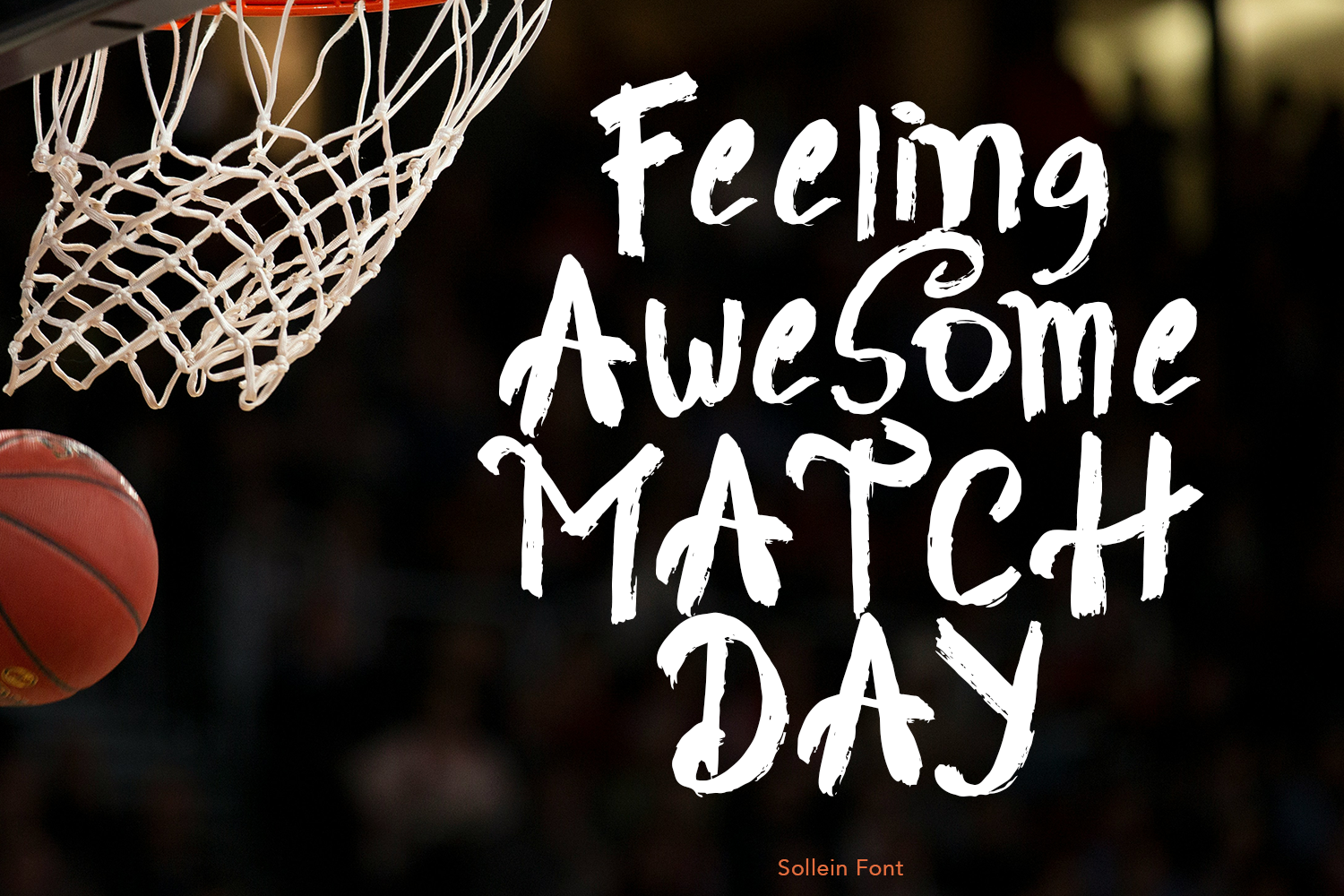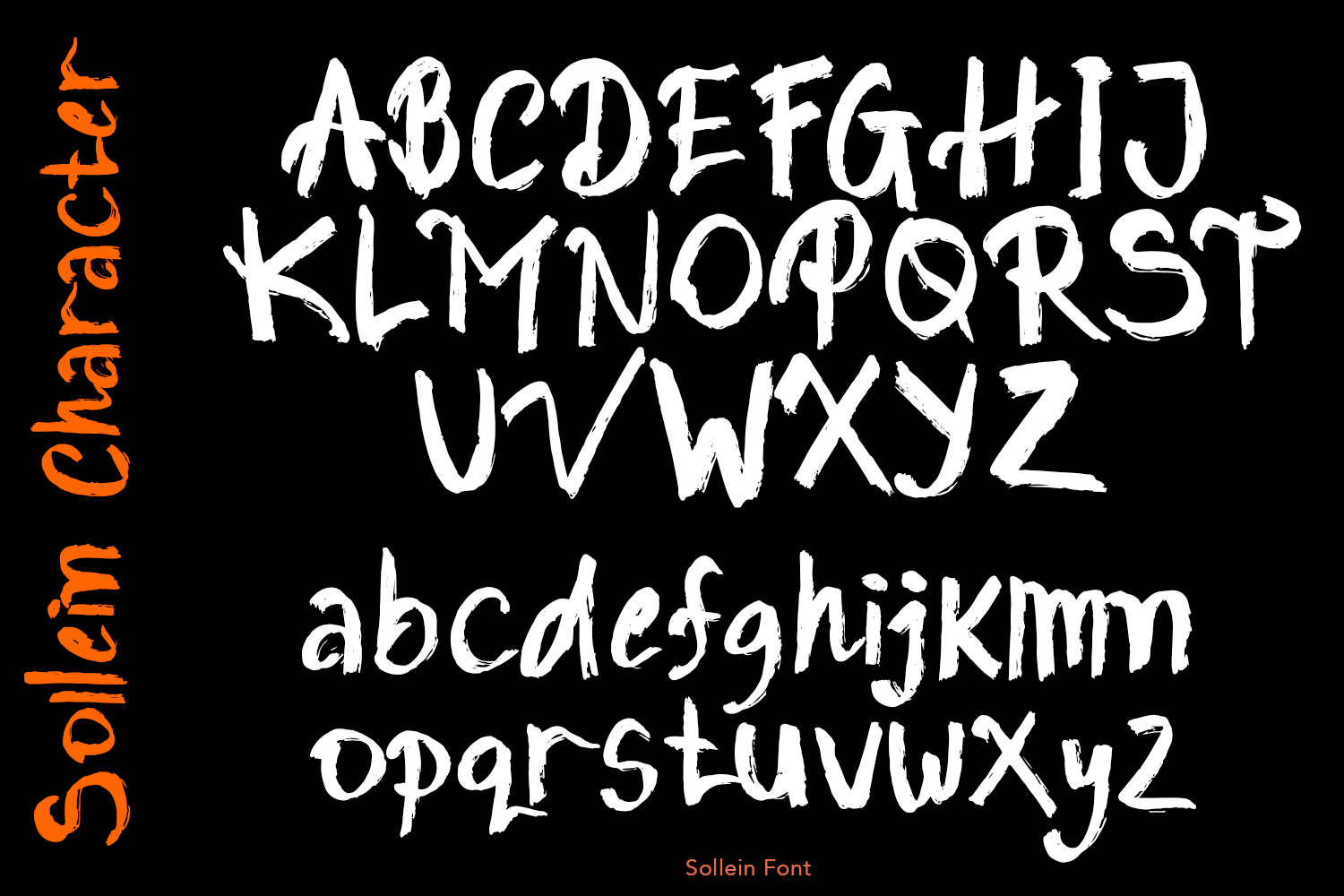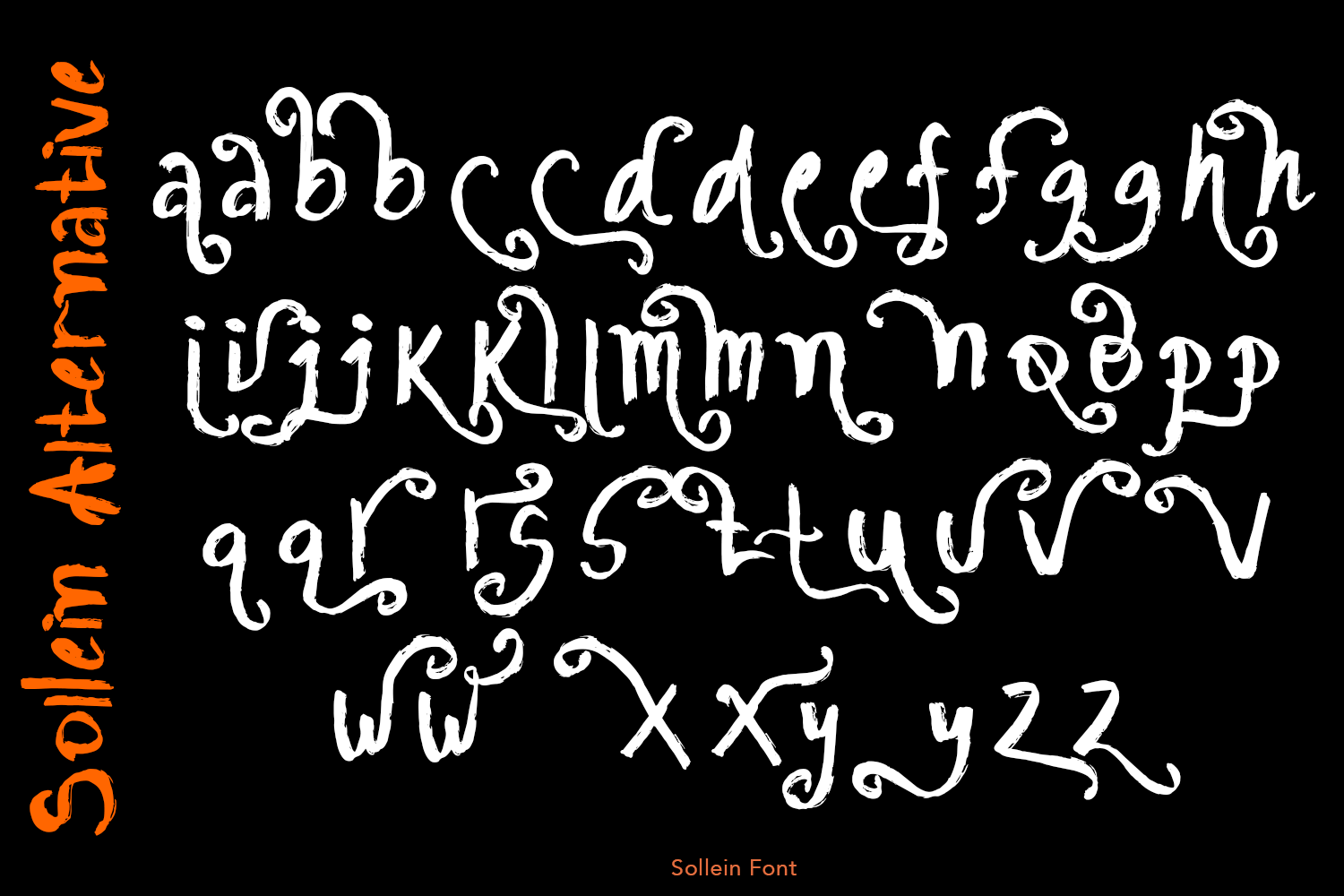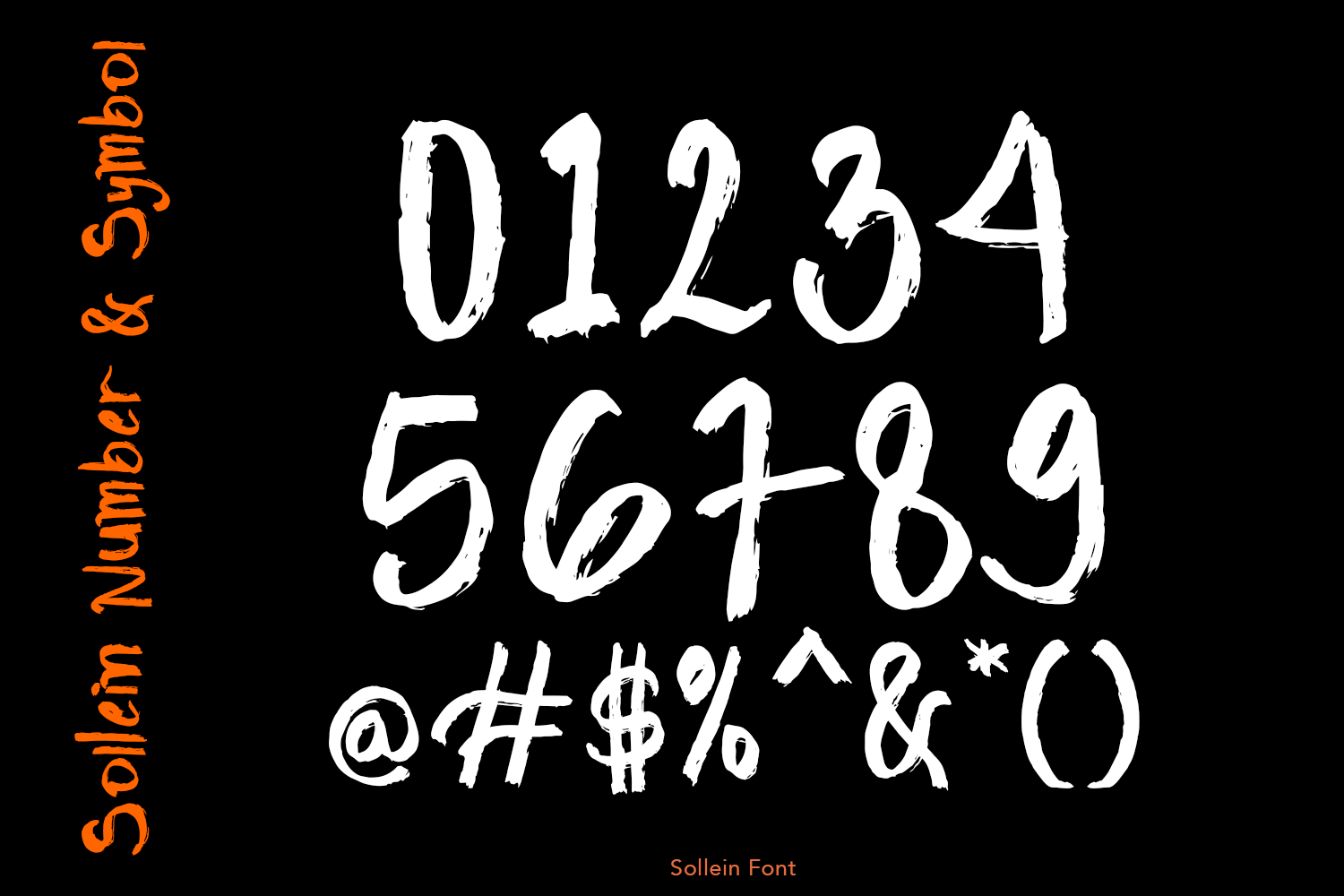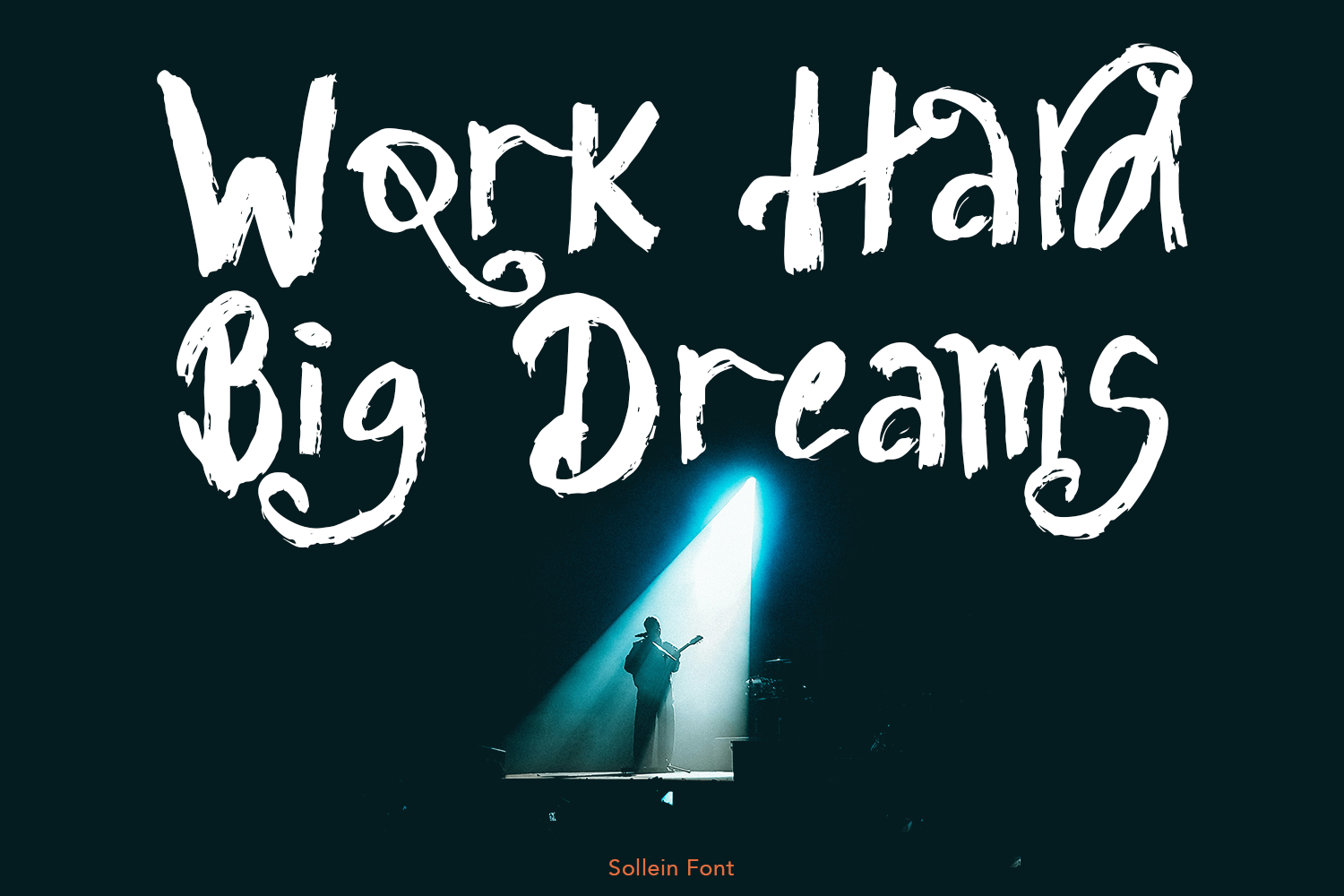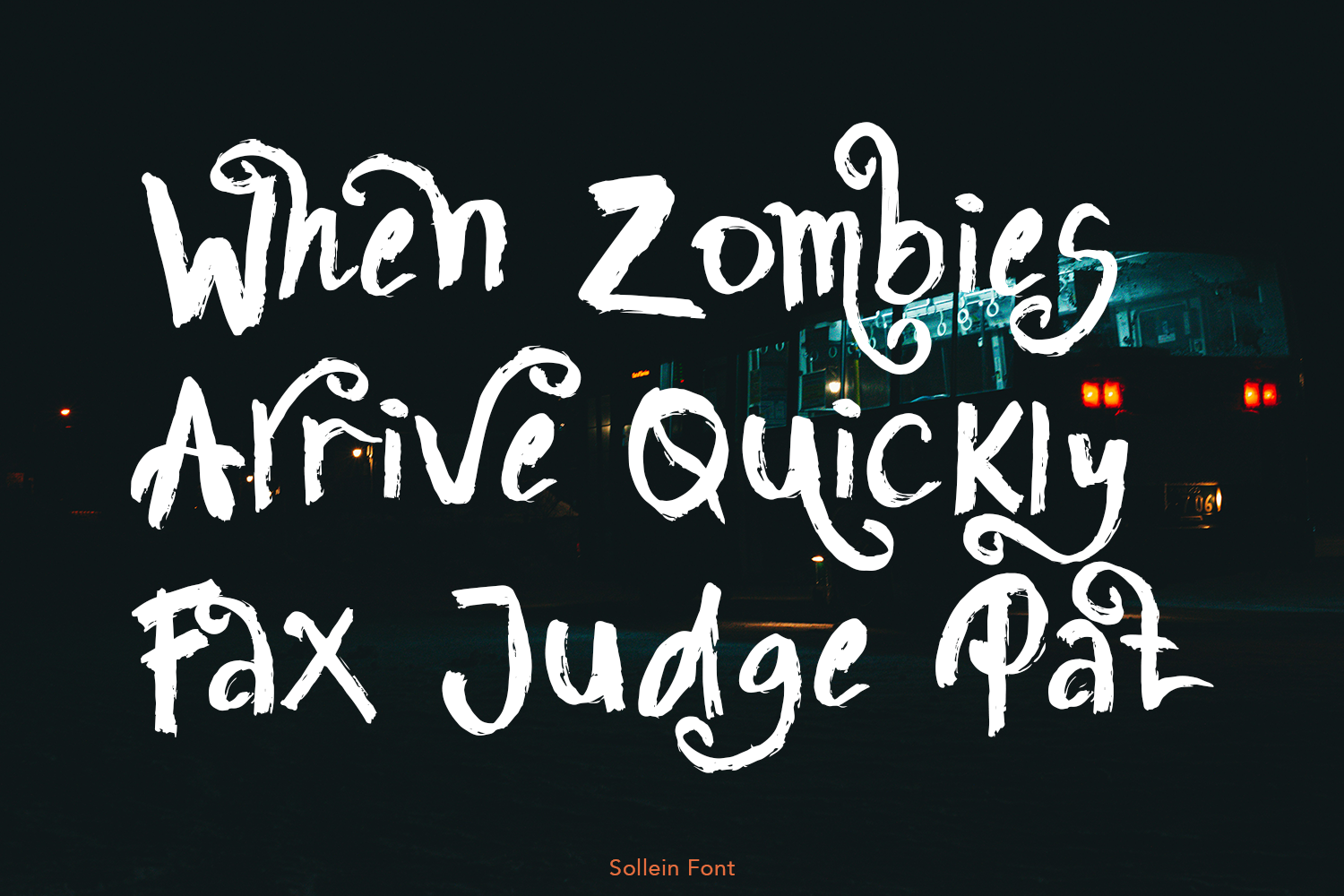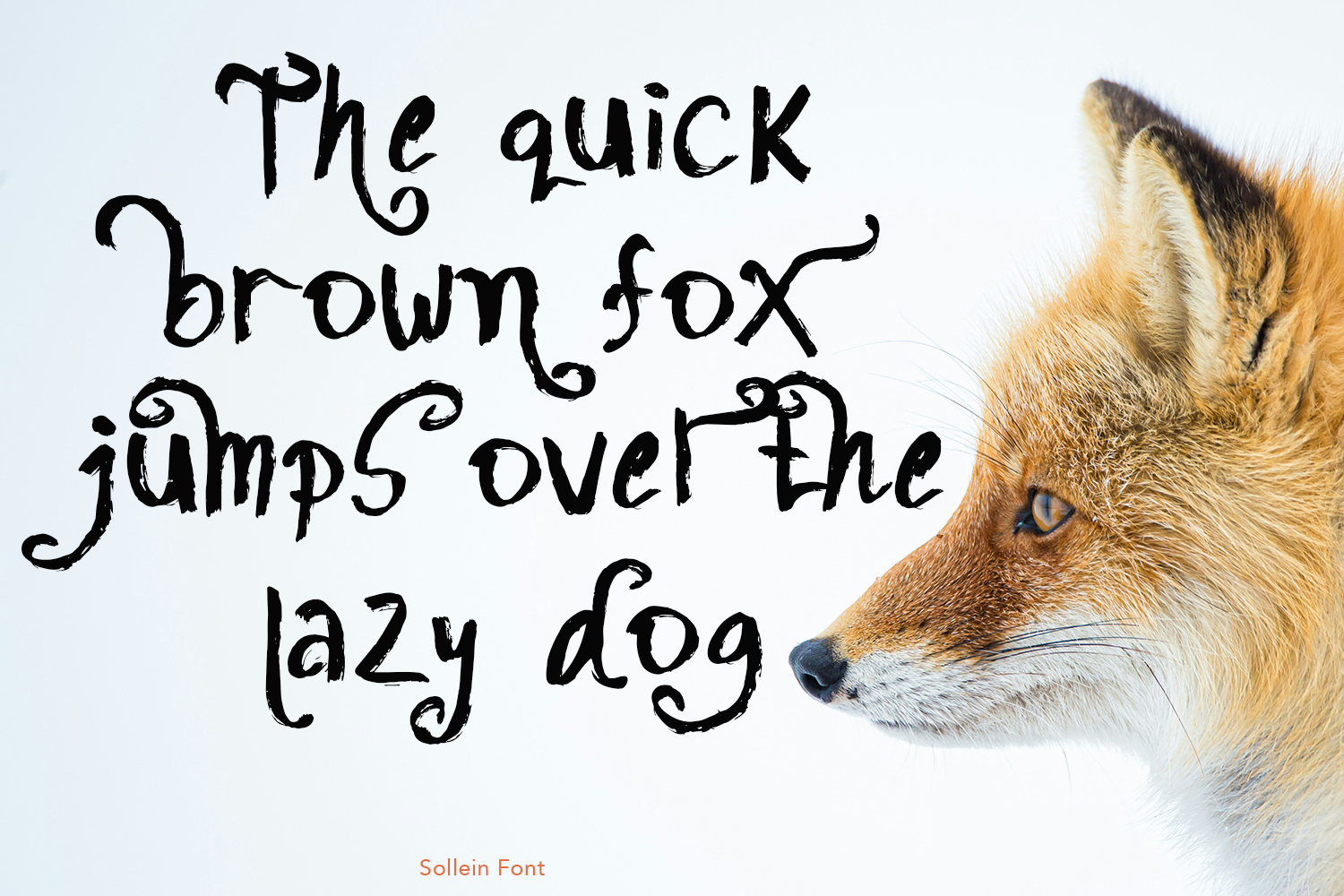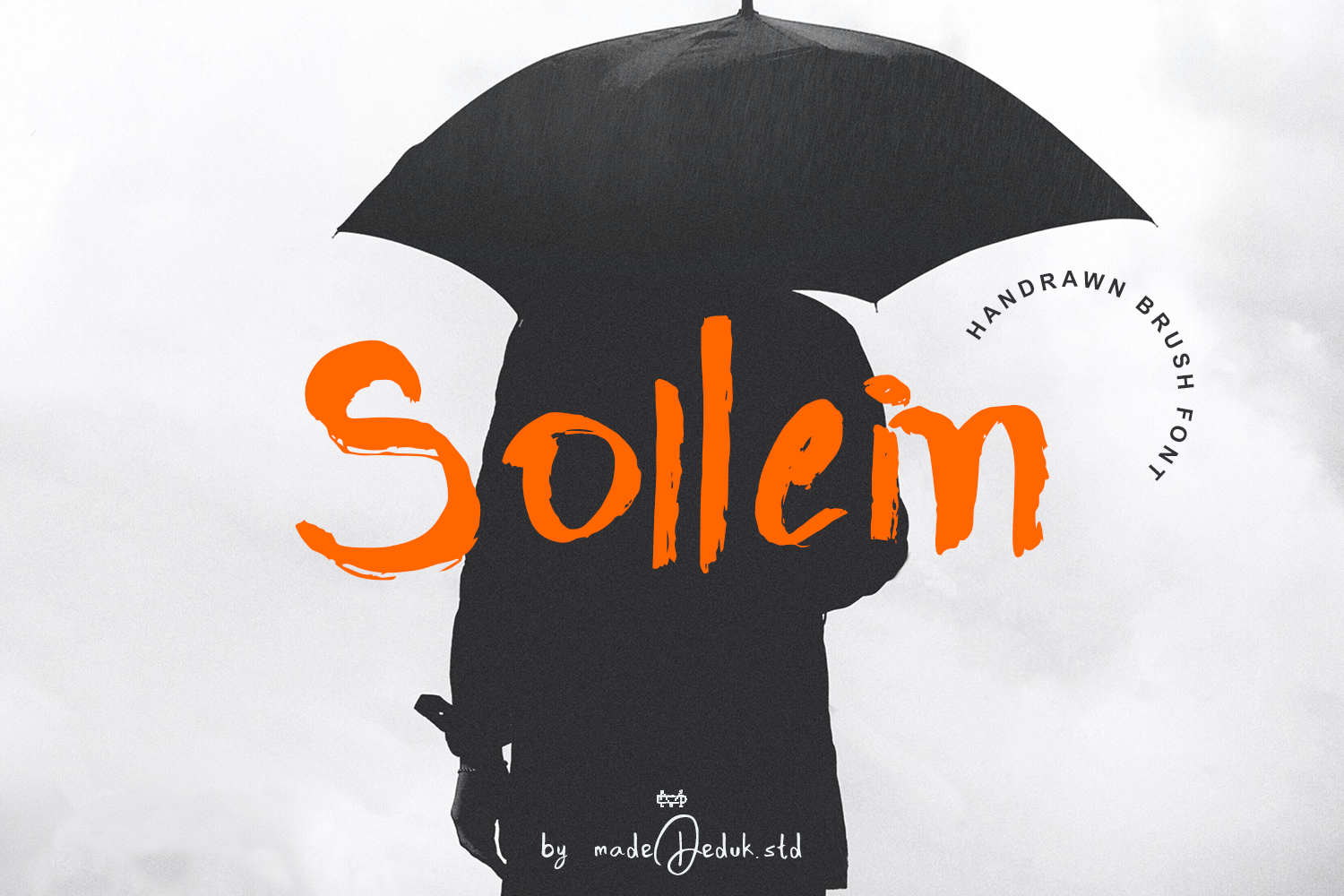
Sollein Brush Font
Really excited to introduce Sollein is a realistic brush font! Come with much alternative and this font perfect for poster design, book covers, merchandise, fashion, newsletters, branding, advertising, magazines, greeting cards, album covers, quote and more.
Featured:
- Number & Symbol
- International Glyphs
- Ligature
- Alternative